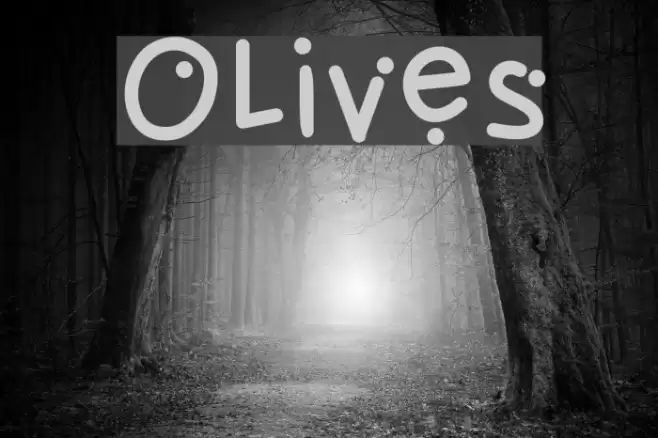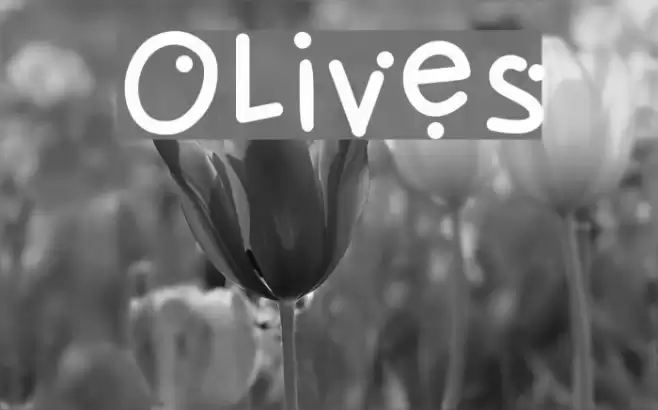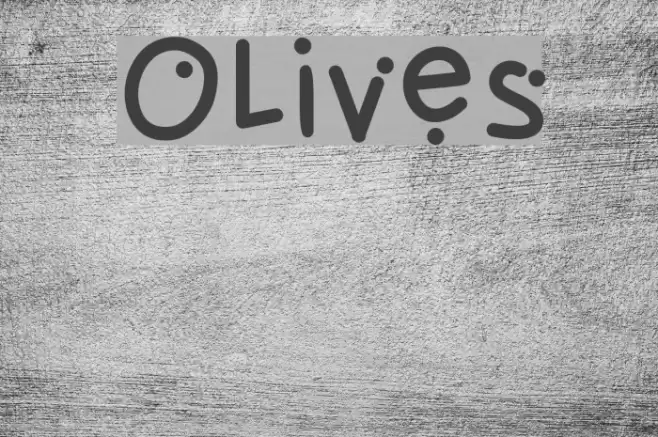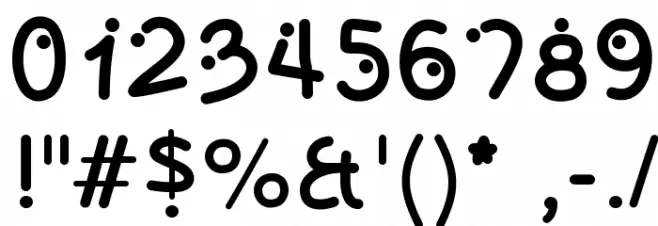
Olives Font
Olives Description
This playful and quirky font features a unique design with circular dots integrated into each character, giving it a whimsical and lighthearted appearance. The letters are rounded and slightly irregular, adding a sense of fun and creativity. The font maintains a consistent stroke width throughout, contributing to its approachable and friendly vibe. The special characters and numbers share the same playful style, making it suitable for a variety of creative projects. Its distinctiveness lies in the incorporation of dots, which adds an element of surprise and charm to the overall design.
A playful and quirky font with circular dots integrated into each character from Comic fonts.
- Proposed Projects: Ideal for children's books, playful branding, party invitations, and creative posters.
- Overall Style: Whimsical